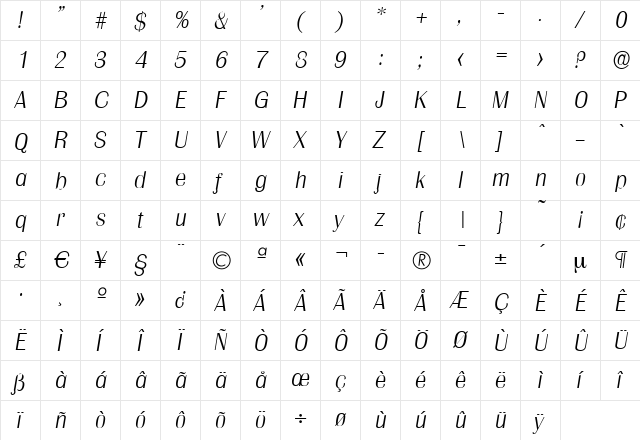
JesseBecker-ExtraLight Italic Font Preview
Design Context for JesseBecker-ExtraLight Typeface
JesseBecker-ExtraLight takes a measured approach to typography — its balanced proportions and neutral character make it a reliable workhorse for both digital and print work. The slanted form adds forward momentum and visual energy. Its slender proportions lend an understated elegance to any composition.
Pro Tip: Try JesseBecker-ExtraLight for annotation and caption copy alongside an upright companion — the contrast in angle creates a dynamic but ordered typographic system.